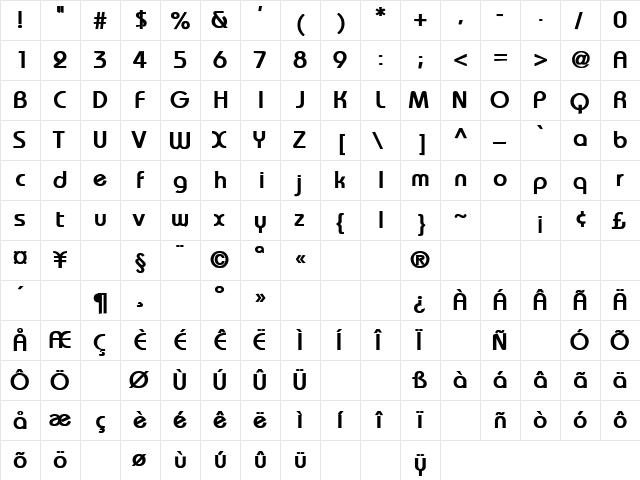
Blue Water 1 Bold
Design Context for Blue Water 1 Typeface
Blue Water 1 offers clean, dependable letterforms without strong stylistic allegiance, making it a practical choice for designers who need flexibility. The heavy weight commands attention and anchors typographic hierarchies.